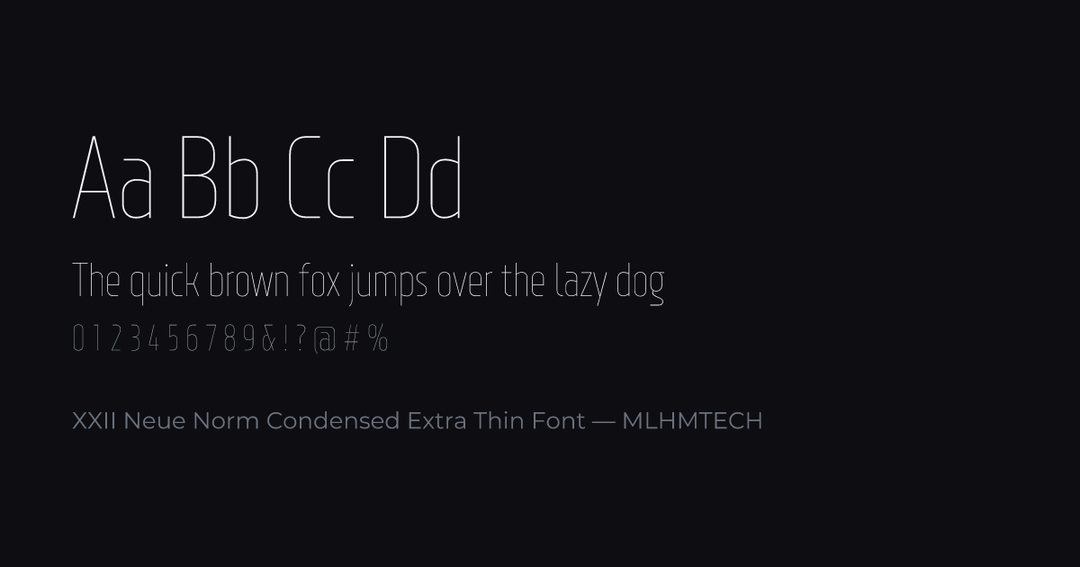
XXII Neue Norm Condensed Extra Thin Font
XXII Neue Norm Condensed Extra Thin is a sleek, modern sans-serif font with a narrow, ultra-light design. Ideal for high-fashion branding, editorial headlines, and minimalist logos.
XXII Neue Norm Condensed Extra Thin is a refined typeface that combines contemporary geometry with an ultra-light weight. Its condensed letterforms create a tall, elegant silhouette, making it perfect for fashion magazines, luxury brand identities, and sophisticated packaging.
This font is part of the XXII Neue Norm family, known for its clean lines and versatility. The Extra Thin weight adds a delicate touch while maintaining legibility, suitable for large display sizes where subtlety is key.
Use it for headlines, titles, and branding projects that require a modern, upscale aesthetic. Pair it with a heavier sans-serif for contrast in body text.